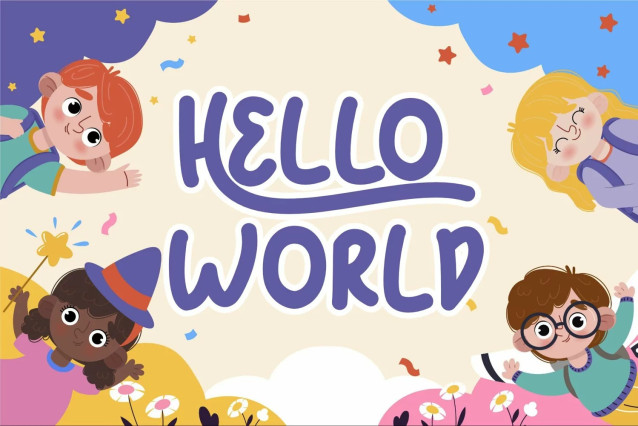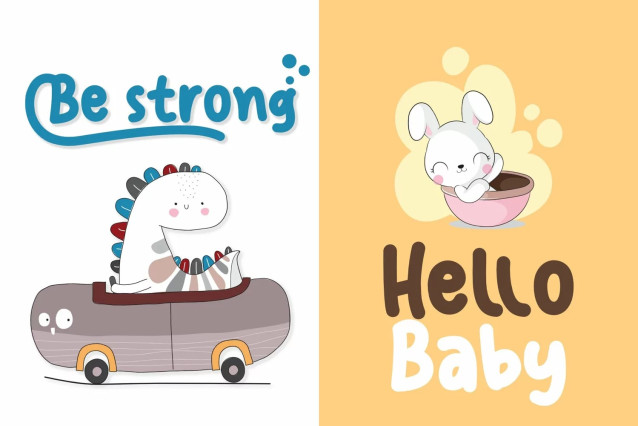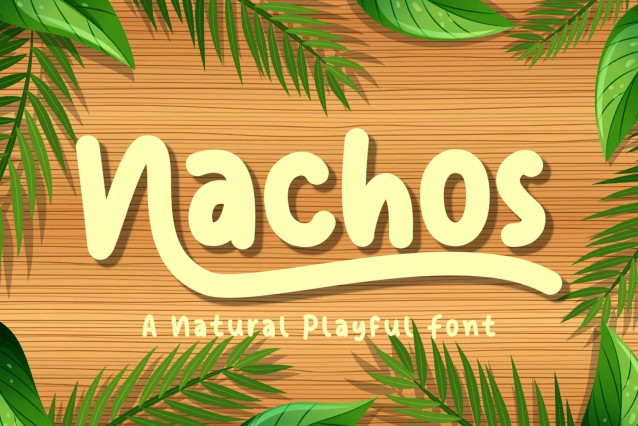
Nachos Playful Font
Nachos Playful Font is a playful handwritten monoline font with alternates and ligatures. The font’s playful nature makes it perfect for designs that require a fun and whimsical touch.
The Nachos font is versatile and can be used for a variety of design projects, including branding, packaging, logos, posters, social media graphics, and more.